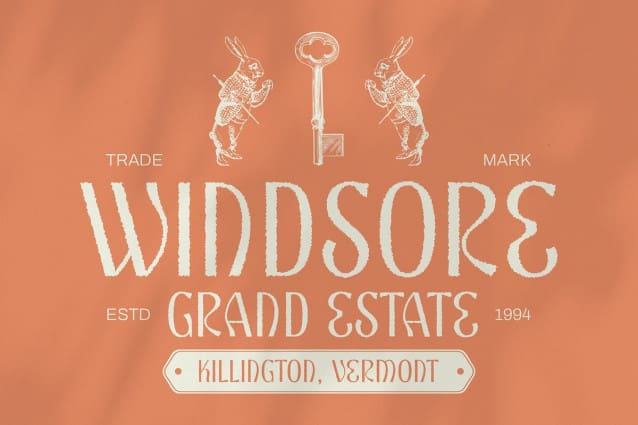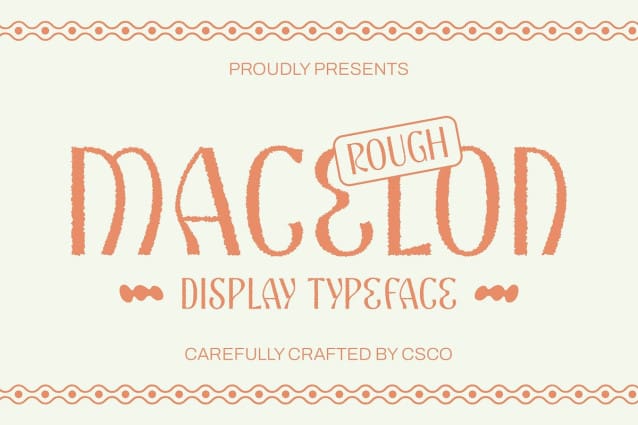
Macelon Rough Font
Macelon Rough Font is a modern display sans-serif font that masterfully blends the elegance of Art Nouveau with a distinctive rough texture. Its flowing lines and whimsical shapes evoke the artistic grace of the early 20th century, creating a striking and dynamic visual appeal. The rough texture adds an artistic layer of depth and warmth, giving the font a unique character that sets it apart from conventional designs.
Artistic Texture with Creative Depth The rough effect of Macelon Rough introduces a creative texture that enhances the font’s visual impact. This artistic element not only adds depth but also infuses the design with a sense of warmth and individuality. The combination of smooth, flowing lines with a rugged finish provides a balanced contrast, making it ideal for projects that seek to convey both sophistication and standout character.
Perfect for Premium Branding and Editorial Design Macelon Rough excels in applications where a blend of elegance and creative flair is essential. Whether you’re working on premium branding, editorial design, or any project requiring a sophisticated and artistic touch, this font delivers a perfect mix of modern elegance and unique visual appeal. Its distinctive style ensures that your designs make a memorable impression, combining artistic charm with refined sophistication.